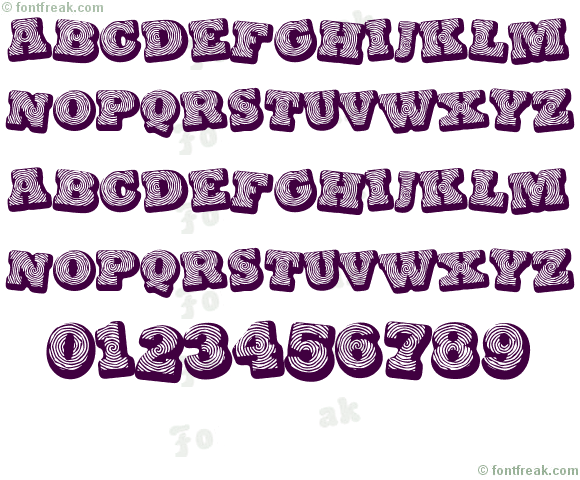
The Black Spiral font by Xerographer Fonts is a distinctive display typeface that captivates with its unique design. Released in 2012 as freeware, this font features a bold, playful aesthetic characterized by its striking spiral patterns. The typeface showcases a medium to heavy stroke weight, with a high contrast between the thick and thin elements that create a dynamic visual impact. The irregular spacing between letters adds to its artistic flair, making it a standout choice for various creative projects.
This font is particularly well-suited for a range of specific use cases. Graphic designers can leverage its quirky style for eye-catching movie posters that need to convey a sense of whimsy or intrigue. It also works beautifully for restaurant menus, especially those aiming for a fun, casual vibe. Wedding invitations can benefit from the font's unique charm, offering a playful yet elegant touch to the design. Additionally, content creators will find the Black Spiral font ideal for social media graphics and promotional materials, where it can grab attention and engage viewers.
The target audience for this font includes graphic designers, small business owners, and content creators looking to infuse their work with personality and creativity. Its distinctive style appeals to those who want to make a memorable impression.
What truly sets the Black Spiral font apart is its ability to blend boldness with artistry. The playful spirals and stylish design create a memorable visual that can elevate any project. For those interested in incorporating this unique typeface into their work, the Black spiral font free download offers a fantastic opportunity to enhance creativity without cost. Embrace the charm of Black Spiral and explore the endless possibilities it brings to your design endeavors.